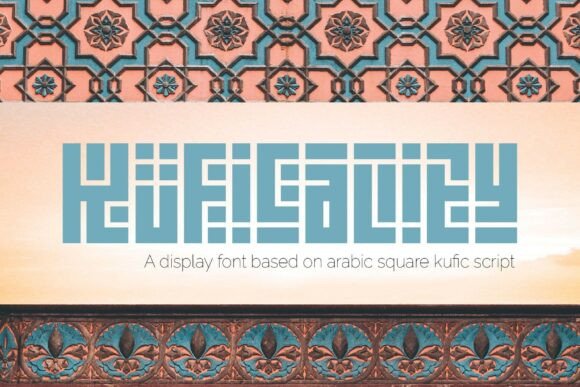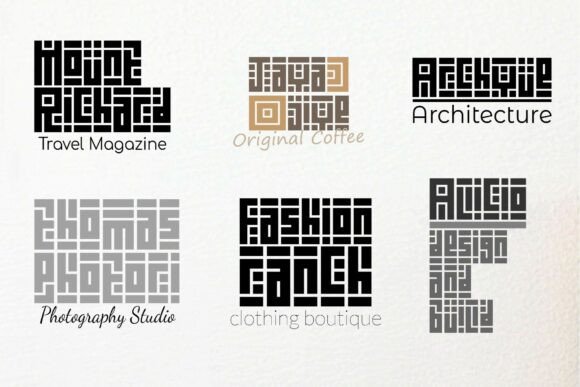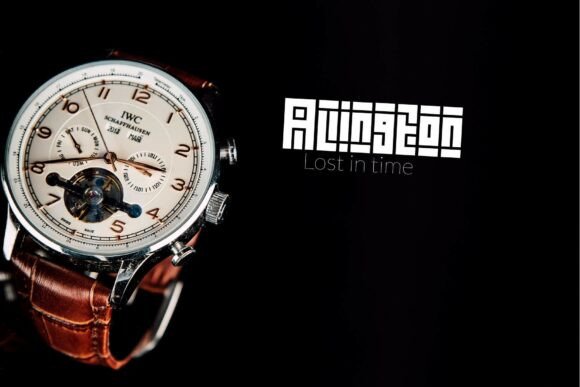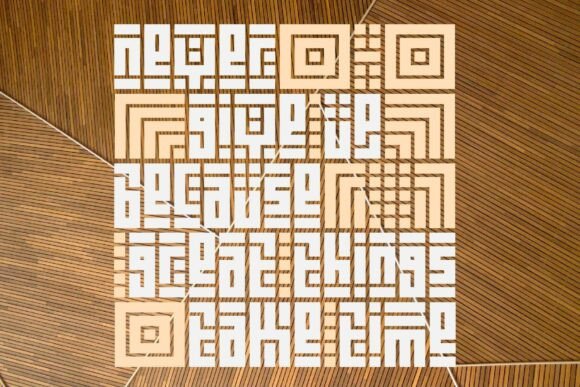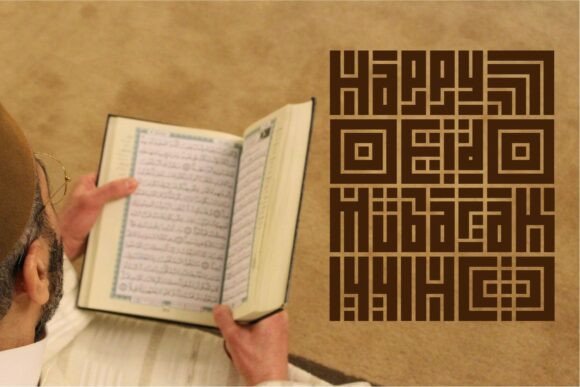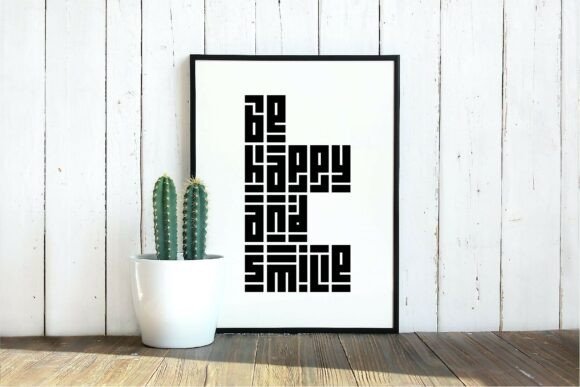
Introduction to Kuficality Font
Have you ever stared at a blank canvas, waiting for inspiration to strike, only to find yourself captivated by the intricate patterns of an Arabic square Kufic script? That’s exactly what happened to us, and it led us to discover the Kuficality Font – a stunning display font that combines elegance and modernity in perfect harmony. This beautiful font is not just a design resource, but a key to unlocking a world of creative possibilities.
As designers, we’re always on the lookout for unique and high-quality fonts that can elevate our projects to the next level. The Kuficality Font is a game-changer, offering a wide range of characters, including upper and lowercase letters, numbers, symbols, and decorative characters. Whether you’re working on a personal project or a commercial design, this font is sure to impress. And the best part? It’s available for free download, making it a valuable asset for any designer.
- Features a unique, modern aesthetic with clean lines and geometric shapes, perfect for adding a touch of sophistication to any design.
- Includes a large character set, including uppercase and lowercase letters, numbers, and punctuation marks, for complete design flexibility.
Honest Review: Kuficality Font
As a designer, I’m always on the lookout for high-quality design resources to elevate my creative projects. Recently, I came across the Kuficality Font, and I’m excited to share my honest review.
What works well about the Kuficality Font is its unique and modern design. The font is perfect for creating eye-catching headings and titles, and its transparent background makes it easy to layer over other design elements. The font also comes in a variety of weights and styles, making it versatile for different design projects.
- Unique and modern design
- Perfect for creating eye-catching headings and titles
- Multiple weights and styles available
One limitation of the Kuficality Font is that it’s not ideal for body text. The font is quite bold and may be difficult to read in large blocks of text. Additionally, the font may not be suitable for projects that require a more traditional or classic look.
Tips for Getting the Most Out of Kuficality Font
For the best results, use Kuficality Font in conjunction with other high-quality design resources, such as images and graphics. Experiment with different font sizes and styles to add visual interest to your design. You can also use Kuficality Font in a variety of creative projects, from logos to business cards.
Kuficality Font is a versatile design resource that can be used in a variety of creative projects, including:
- Websites and digital marketing materials
With its high-quality design and transparent background, Kuficality Font is the perfect addition to any creative project.